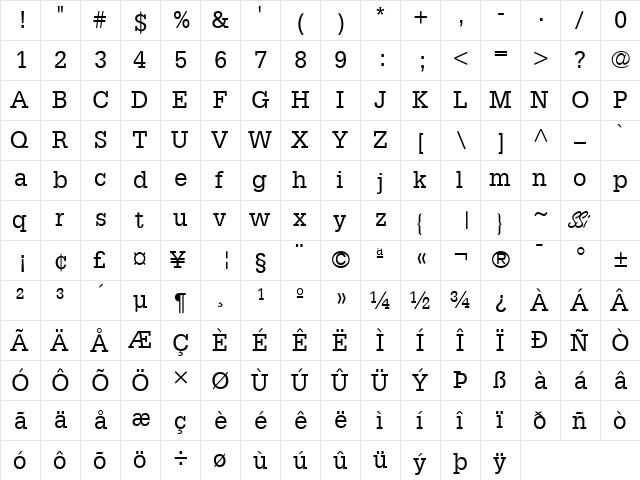
Installation SSi Regular
Design Context for Installation SSi Typeface
Installation SSi offers clean, dependable letterforms without strong stylistic allegiance, making it a practical choice for designers who need flexibility.
Pro Tip: Pair Installation SSi with a font of contrasting weight or personality to build a more expressive typographic hierarchy.